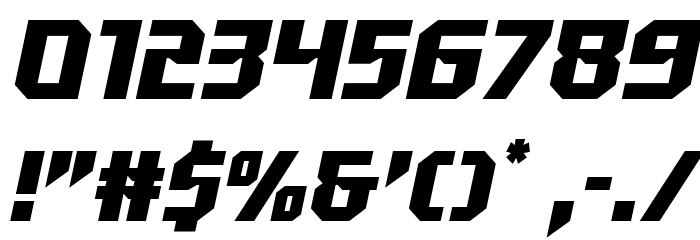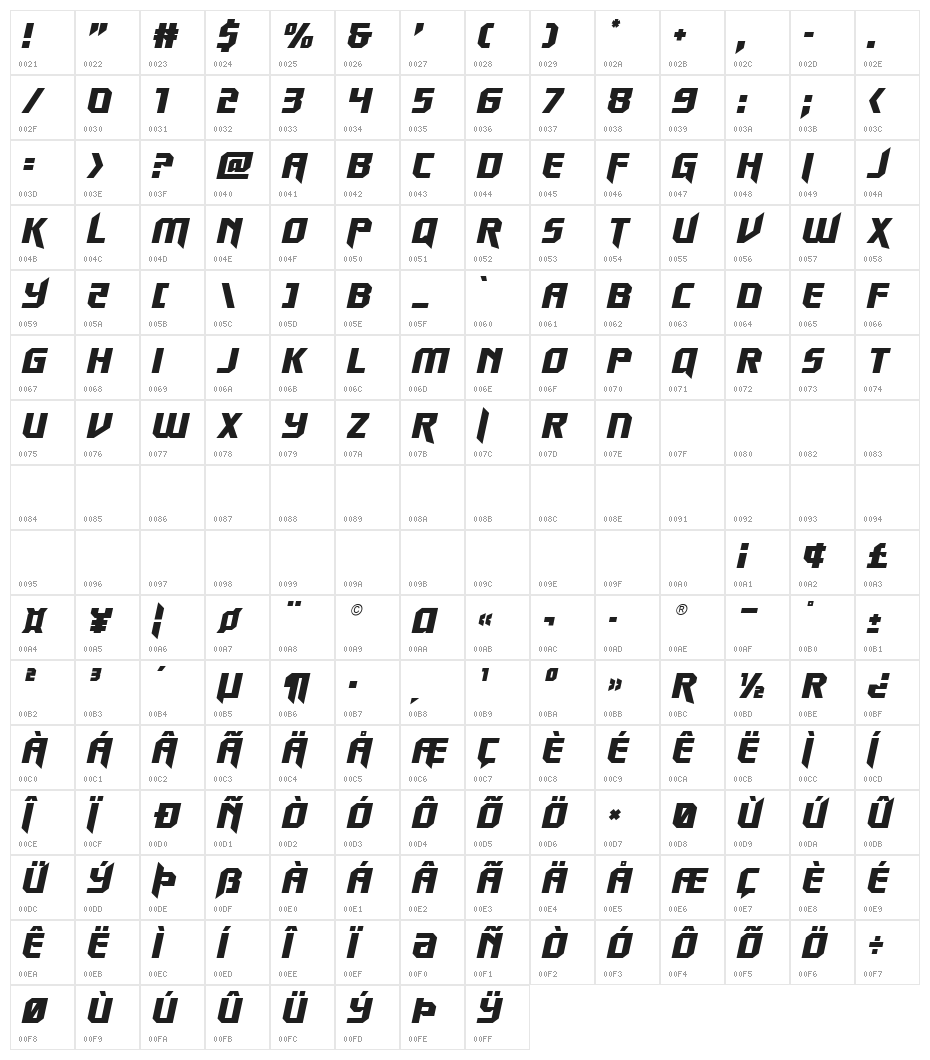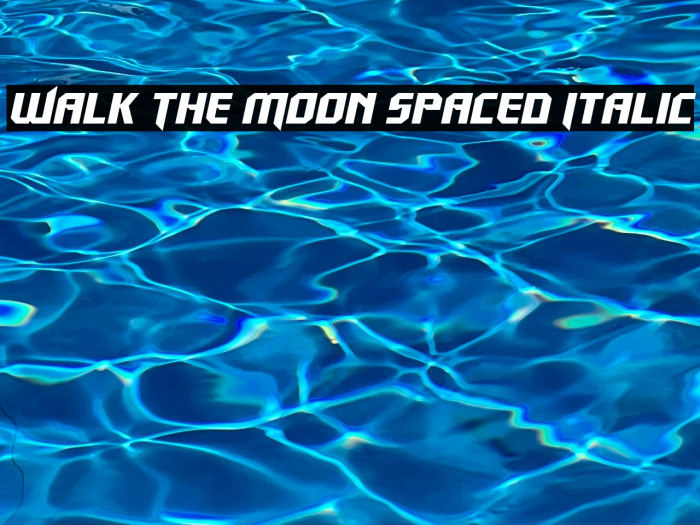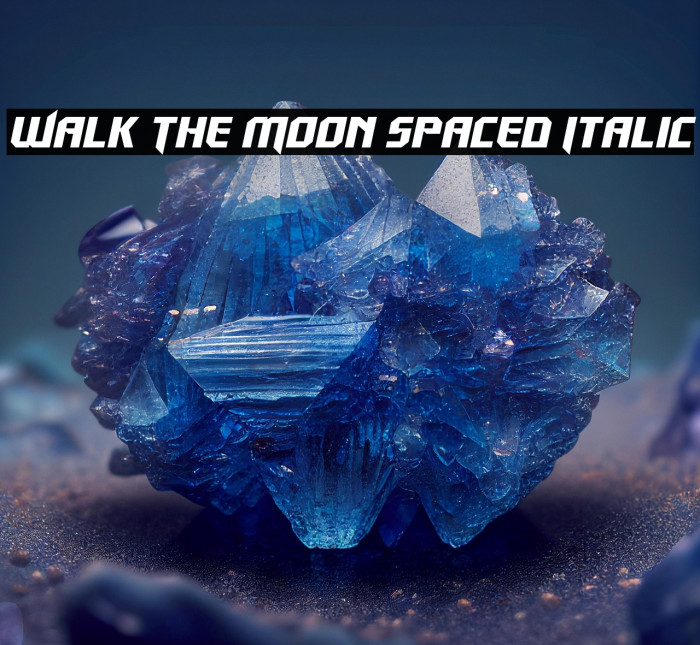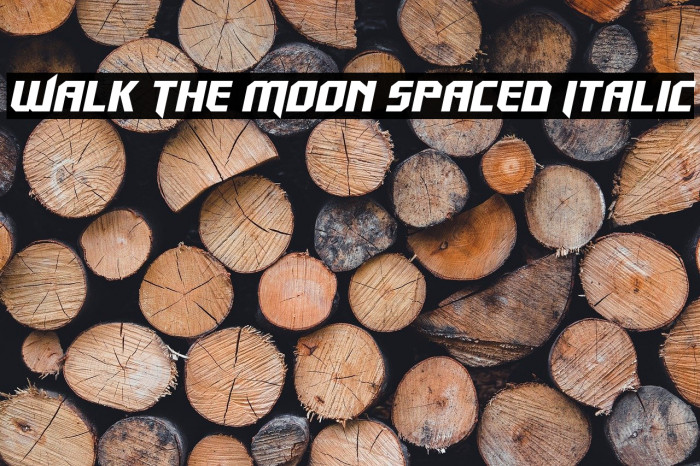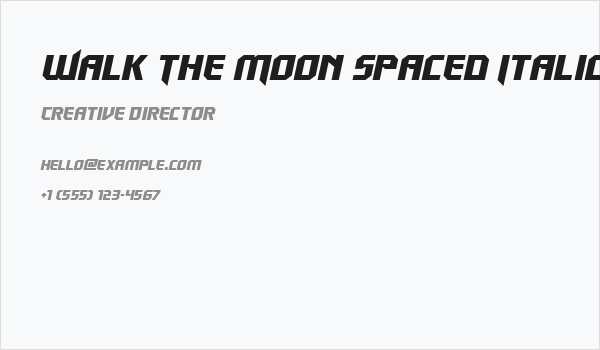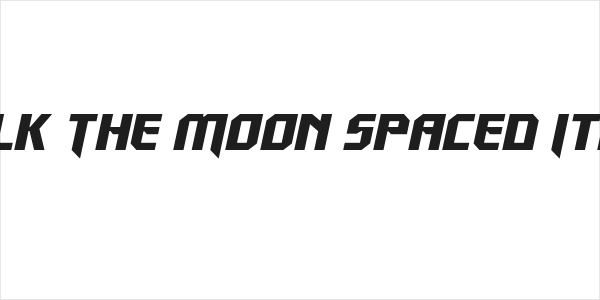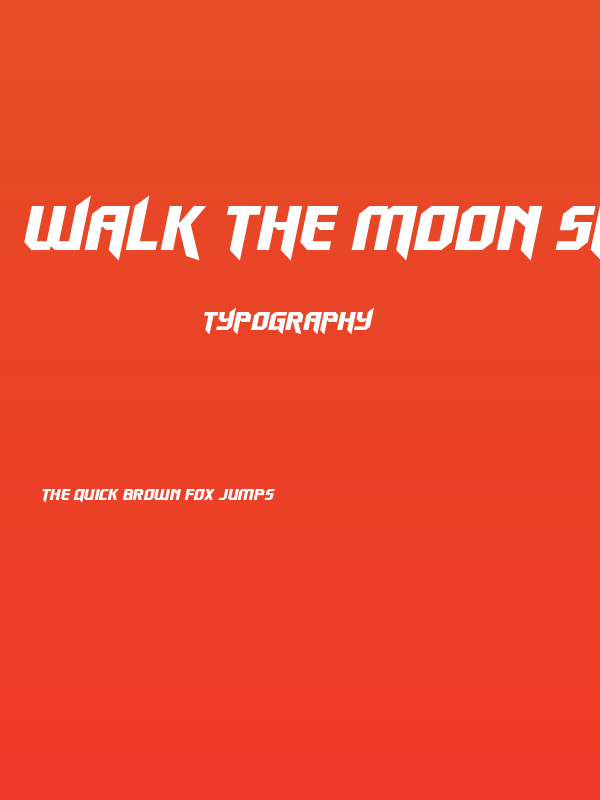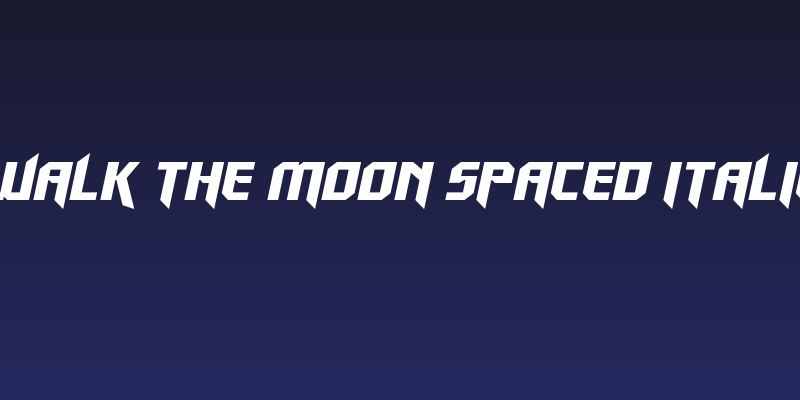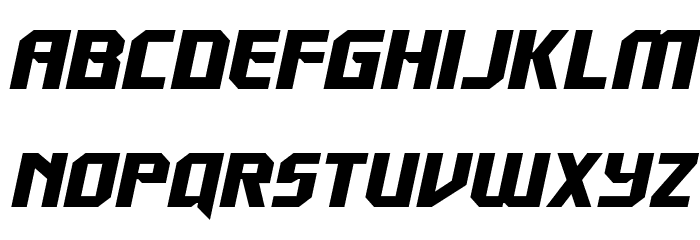
Walk The Moon Spaced Italic Font
Walk The Moon Spaced Italic Description
This font features a bold, angular design with a futuristic and dynamic appearance. The characters are italicized, giving them a sense of motion and energy. The sharp edges and geometric shapes create a striking visual impact, making it ideal for attention-grabbing designs. The uppercase and lowercase letters maintain a consistent style, with a slight slant that enhances the italic effect. Numbers and special characters are designed with the same bold and angular characteristics, ensuring uniformity across all glyphs. The font's unique style makes it suitable for modern and edgy projects.
| Proposed Projects | Ideal for sci-fi themed designs, video game titles, posters, and branding that requires a modern and edgy look. |